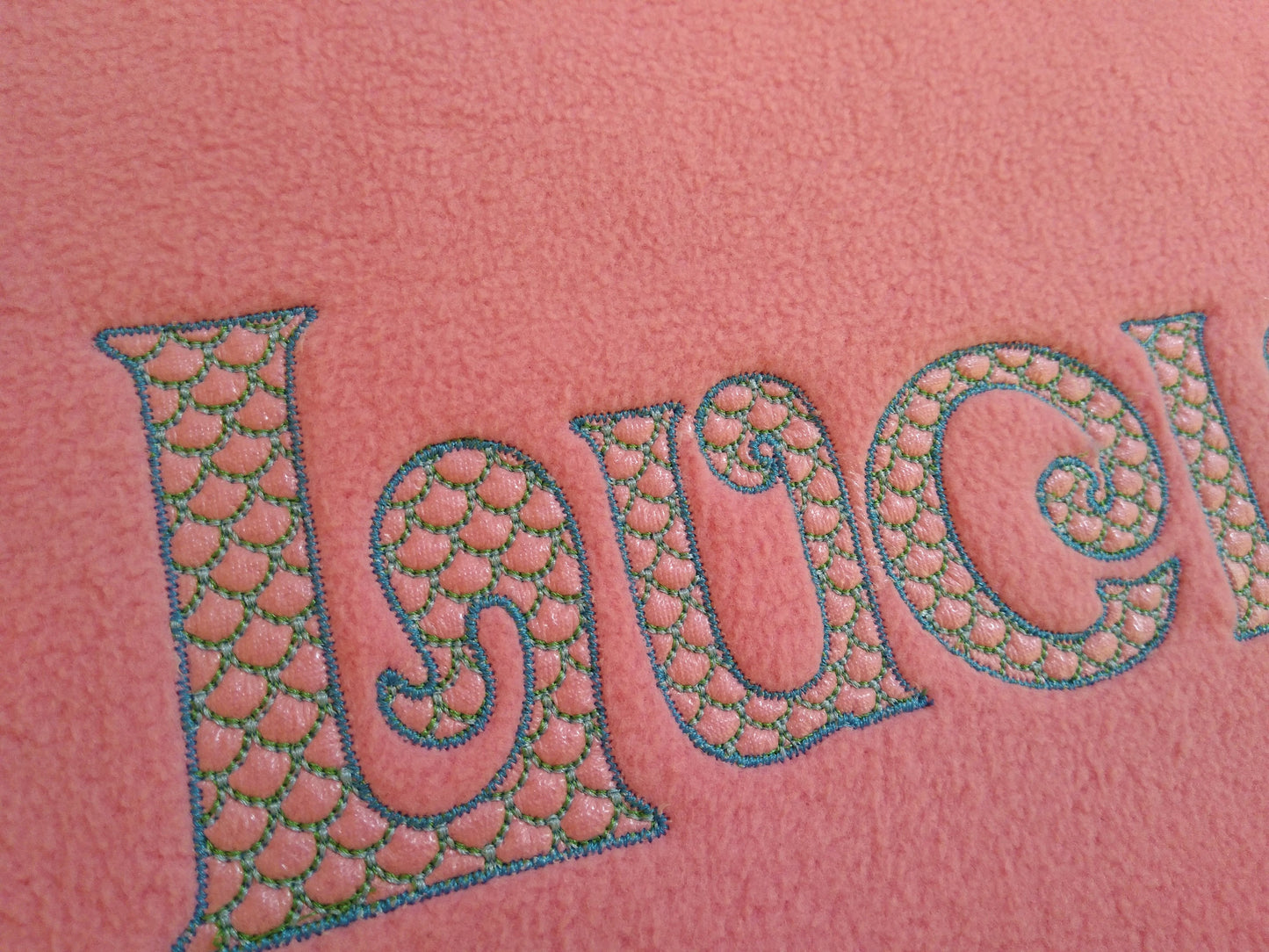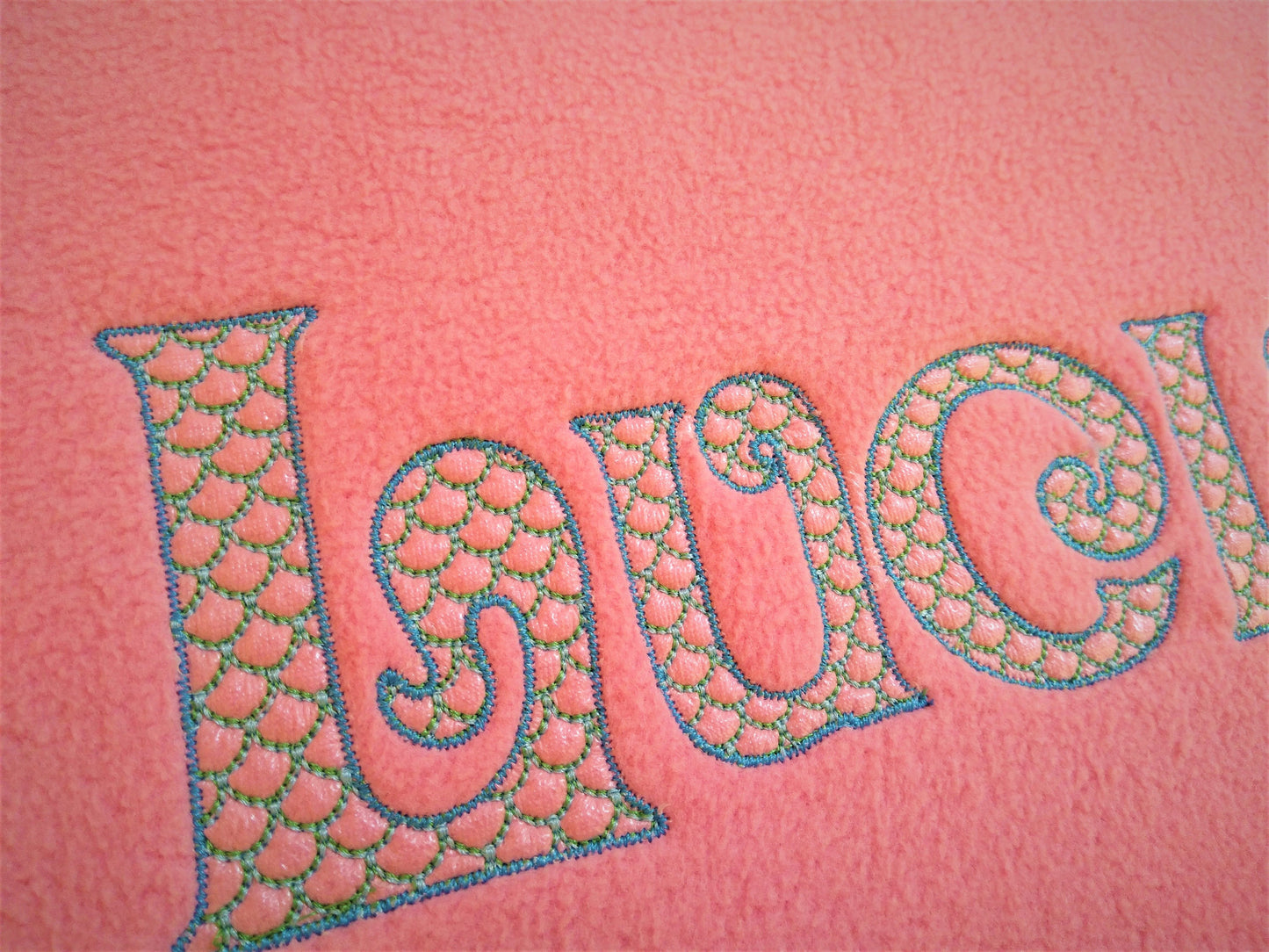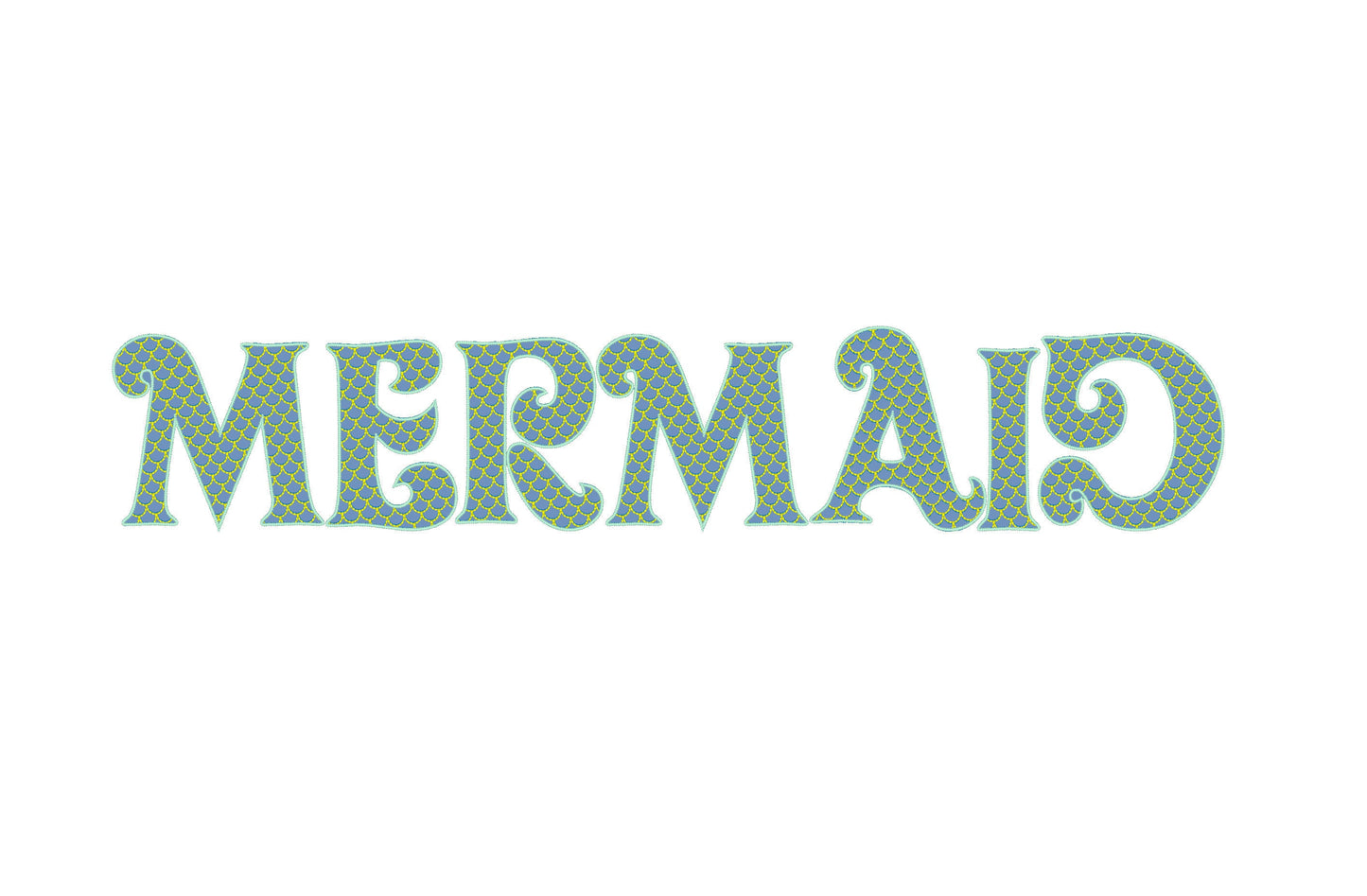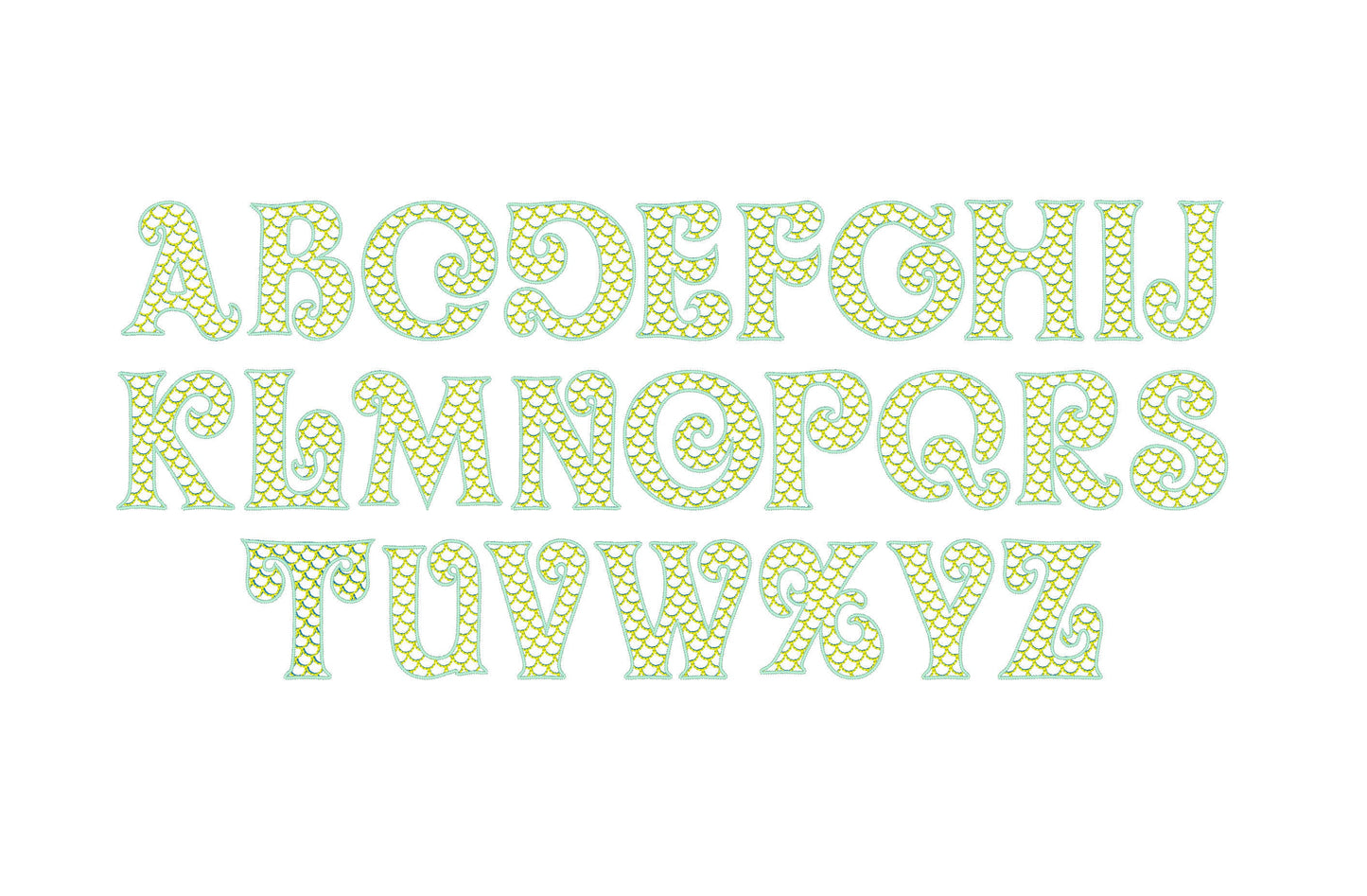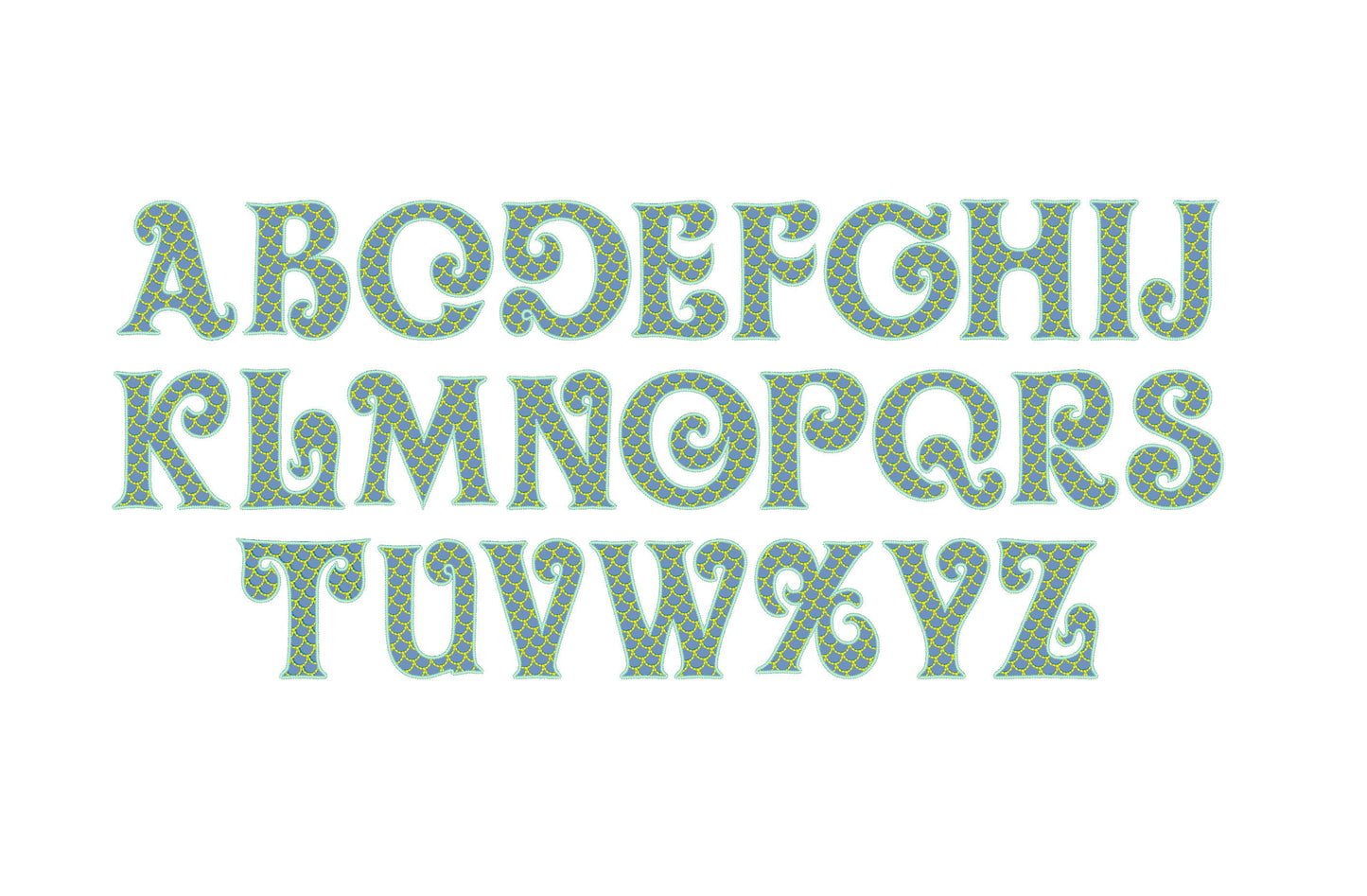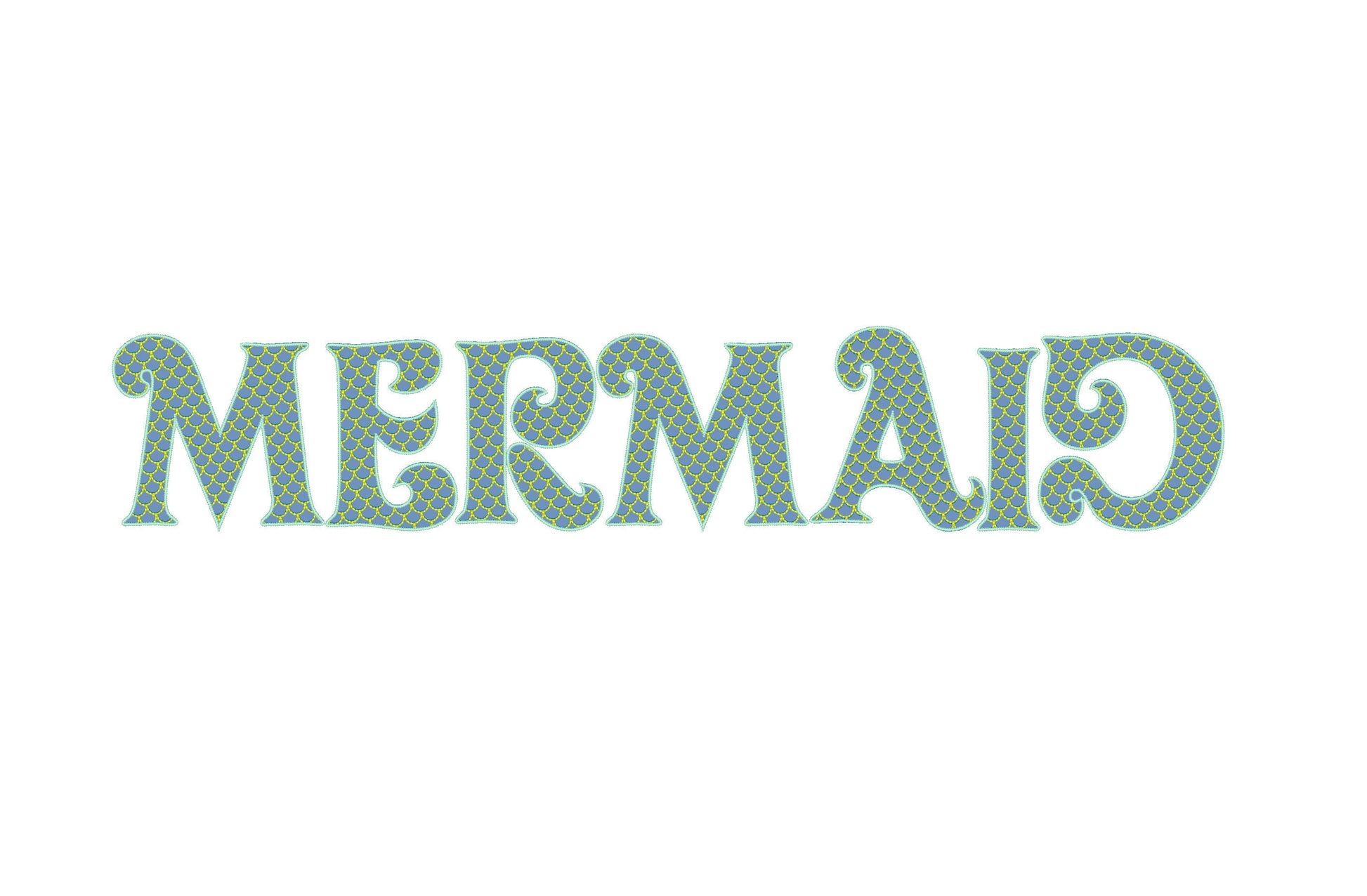
Or click to open the linkMermaid circle monogram letters in light stitch, with an iridescent look from two ordinary thread colors. Magical for girls' names, towels and beach bags.
No special thread: the stitch pattern puts more of one color on one side of the letter and more of the other on the opposite side. 26 capital letters in five sizes: 2, 2.5, 3, 4 and 5 inches.